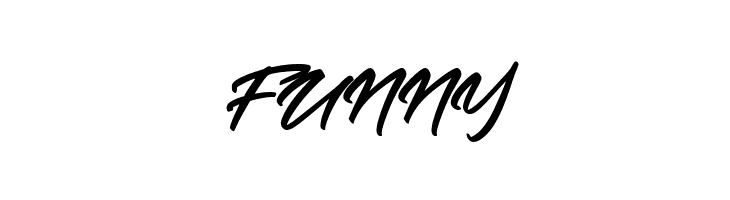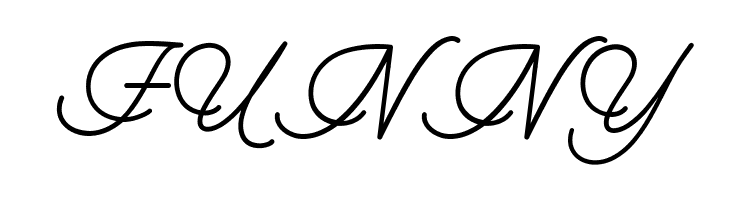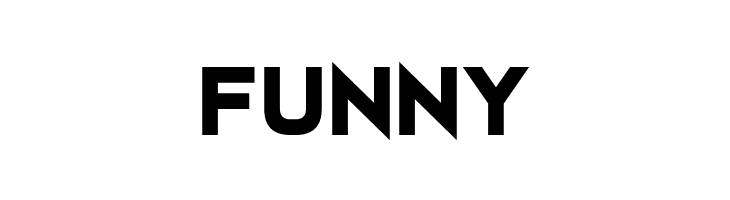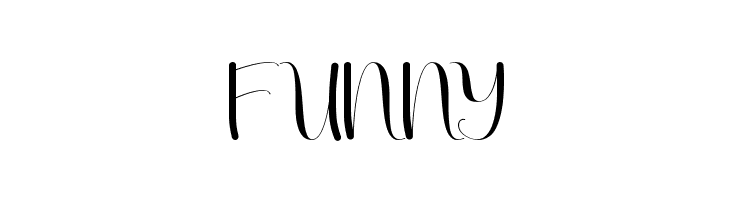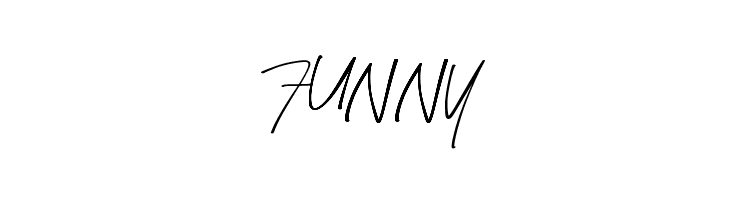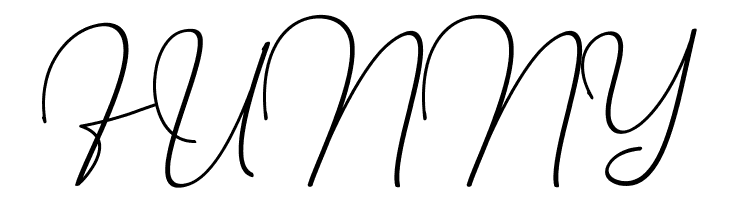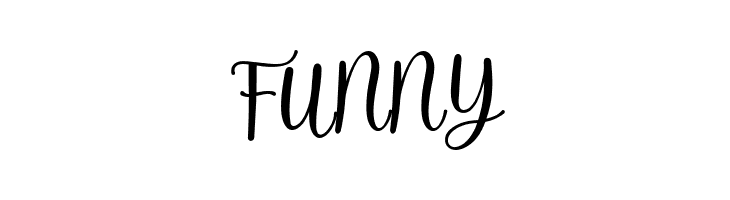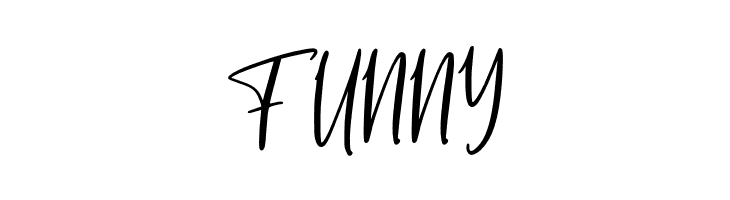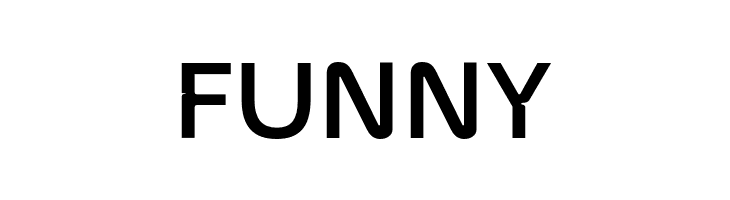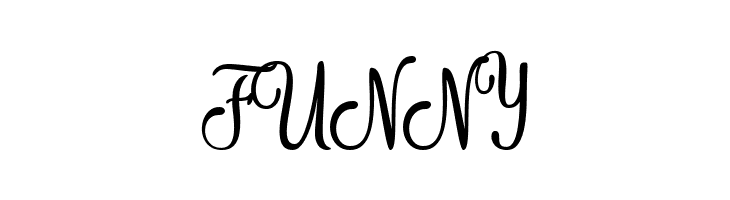
A playful and elegant script font with decorative swashes and flowing letterforms.
A playful, dotted outline font with a hand-drawn, whimsical style.
A dynamic and fluid handwritten font with elegant cursive strokes.
A bold, brushstroke-style font with an energetic and artistic flair.
A bold, geometric font with a modern and angular design.
A dynamic and elegant script font with flowing curves and a handwritten feel.
A bold, cursive font with a dynamic and handwritten style.
A bold, flowing script font with dynamic curves and elegant flourishes.
A modern, geometric sans-serif font with uniform stroke widths and clear characters.
A modern, italic font with a sleek and dynamic style.
An elegant script font with intricate loops and flourishes.
A bold, playful font with thick, rounded strokes and a hand-drawn feel.
A bold, decorative font with elegant serifs and playful curves.
A flowing, cursive script font with elegant, interconnected characters.
An elegant and flowing script font with graceful curves and refined flourishes.
A lively, cursive script font with smooth, sweeping curves.
A playful, rounded font with a hand-drawn, whimsical style.
A whimsical, artistic font with flowing uppercase letters and straightforward lowercase letters.
A dynamic handwritten font with fluid, interconnected strokes.
Playful handwritten font with rounded edges.
An elegant, flowing script font with a handwritten appearance.
A graceful script font with fluid, cursive strokes and elegant character design.
A lively handwritten font with dynamic curves and fluid strokes.
A charming and elegant script font with flowing, cursive letterforms.
A sophisticated script font with elegant, flowing cursive characters.
A bold, playful handwritten font with rounded edges.
A playful, bold, handwritten-style font with smooth, rounded characters.
A playful, bold outline font with a hand-drawn, whimsical style.
A playful, bold outline font with rounded characters and consistent stroke width.
An elegant cursive font with flowing loops and artistic swirls.
An elegant, cursive script font with flowing, italicized letters.
A modern, elegant script font with flowing, cursive characters and high contrast.
A tall, narrow font with sharp serifs and a modern, decorative style.
A playful and elegant script font with fluid, connected letterforms.
A bold, brush-style font with dynamic and artistic strokes.